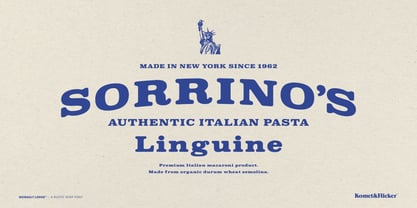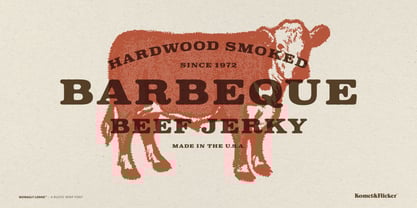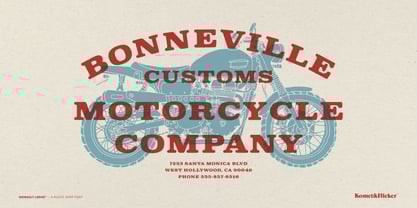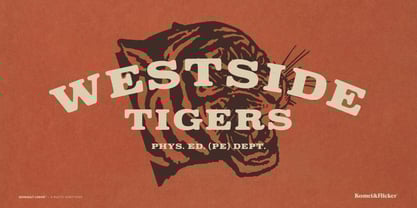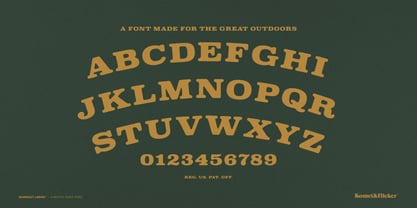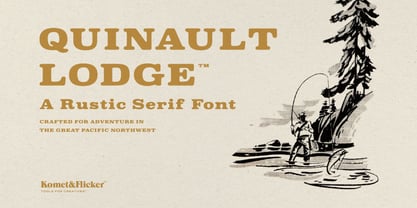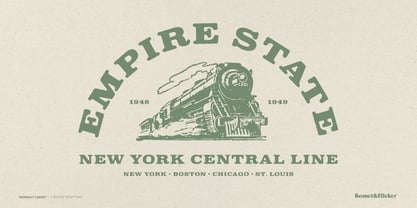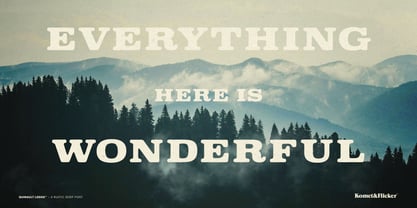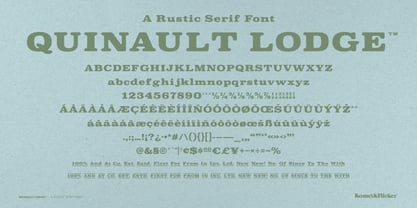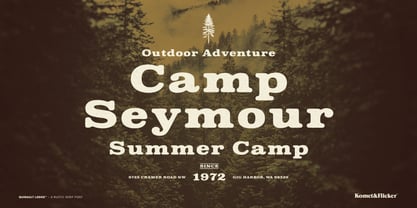
Quinault Lodge
by Komet & Flicker
The Quinault Lodge Font Family was designed by David Phillips and published by Komet & Flicker. Quinault Lodge contains 1 styles.
Quinault Lodge is a rustic serif font with a well-worn feel that lends a sense of vintage authenticity to any design, making it perfect for those seeking a handcrafted, time-tested aesthetic. Whether you're branding a retro coffee shop, designing labels for small-batch spirits, crafting vintage-inspired apparel, or creating outdoor-themed packaging, Quinault Lodge delivers with rugged personality and character in every letter.
And to enhance its versatility, this font includes a set of 20 custom connecting words (such as: and, the, from, to) available in both caps and lowercase styles. These seamlessly integrate with your layout, making it easy to create natural, flowing typographic compositions.
• Full A-Z uppercase basic latin characters
• Select European specific characters
• Numbers, punctuation, and select symbols
• Two styles of pre-made common fractions
• Set of 20 custom connecting word glyphs in two styles
Designers: David Phillips
Publisher: Komet & Flicker
Foundry: Komet & Flicker